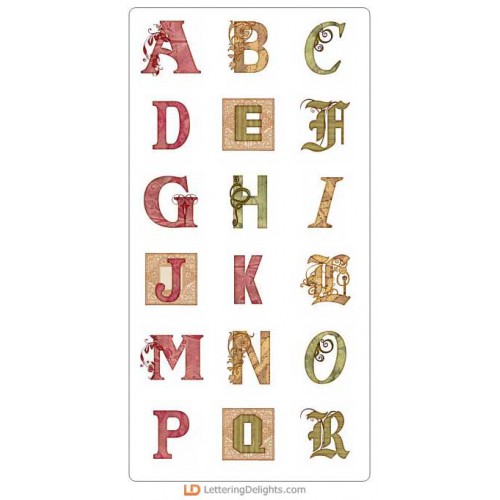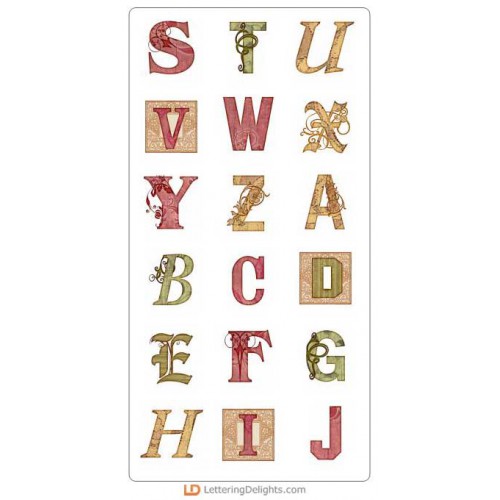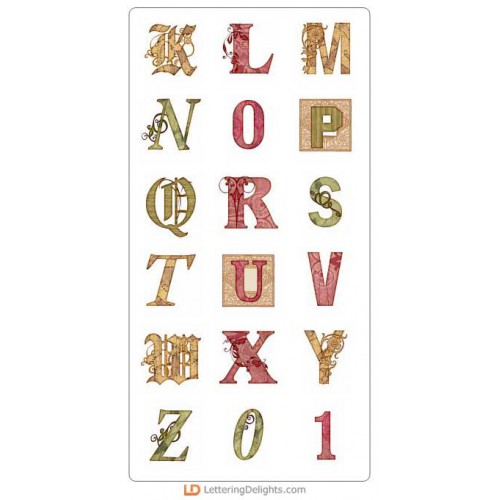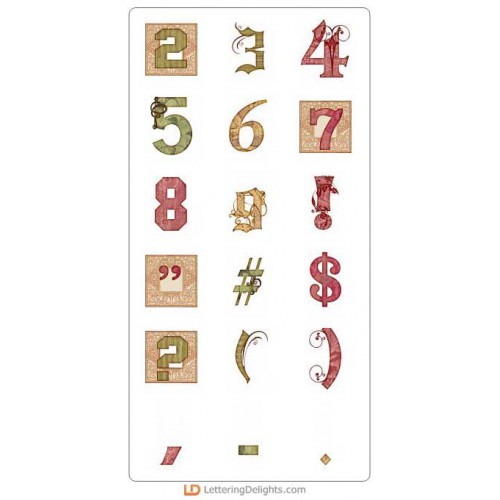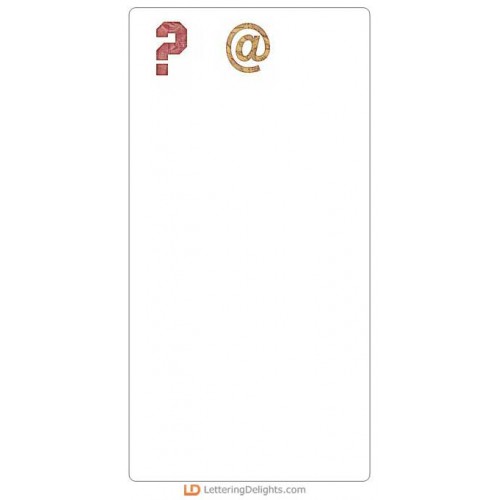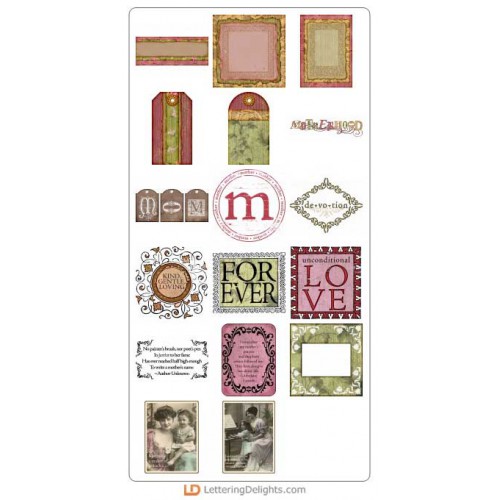
Mother Two for Tuesday Bundle
You'll be tickled pink by these fanciful alphabet letters and graphic set images. Preserve your precious memories or create one-of-a-kind personalize papercrafts with impeccable style!